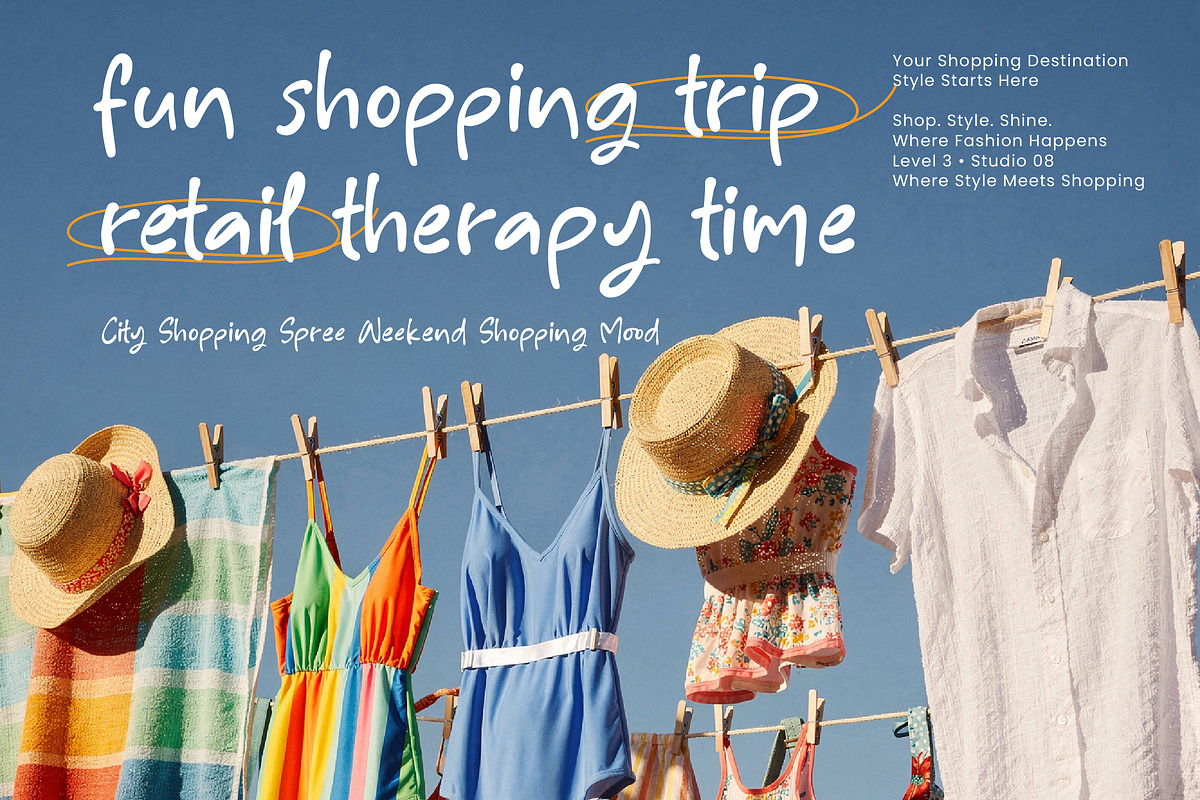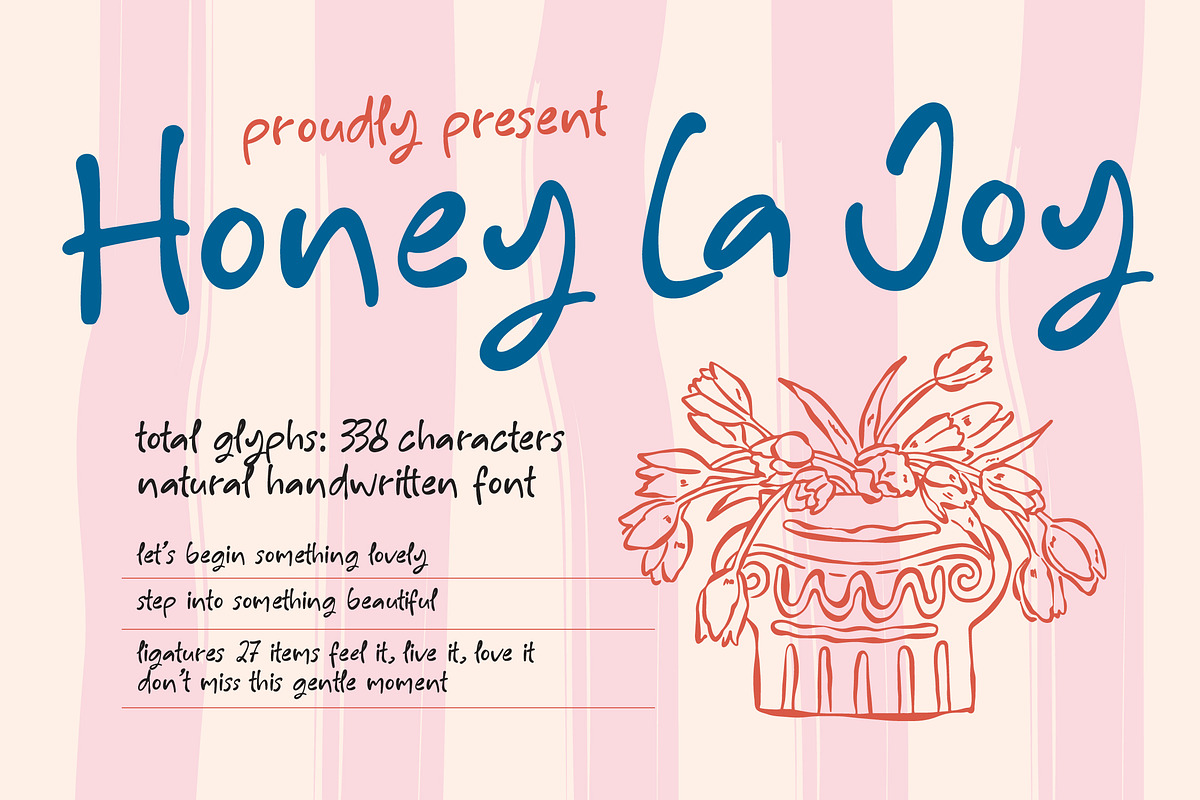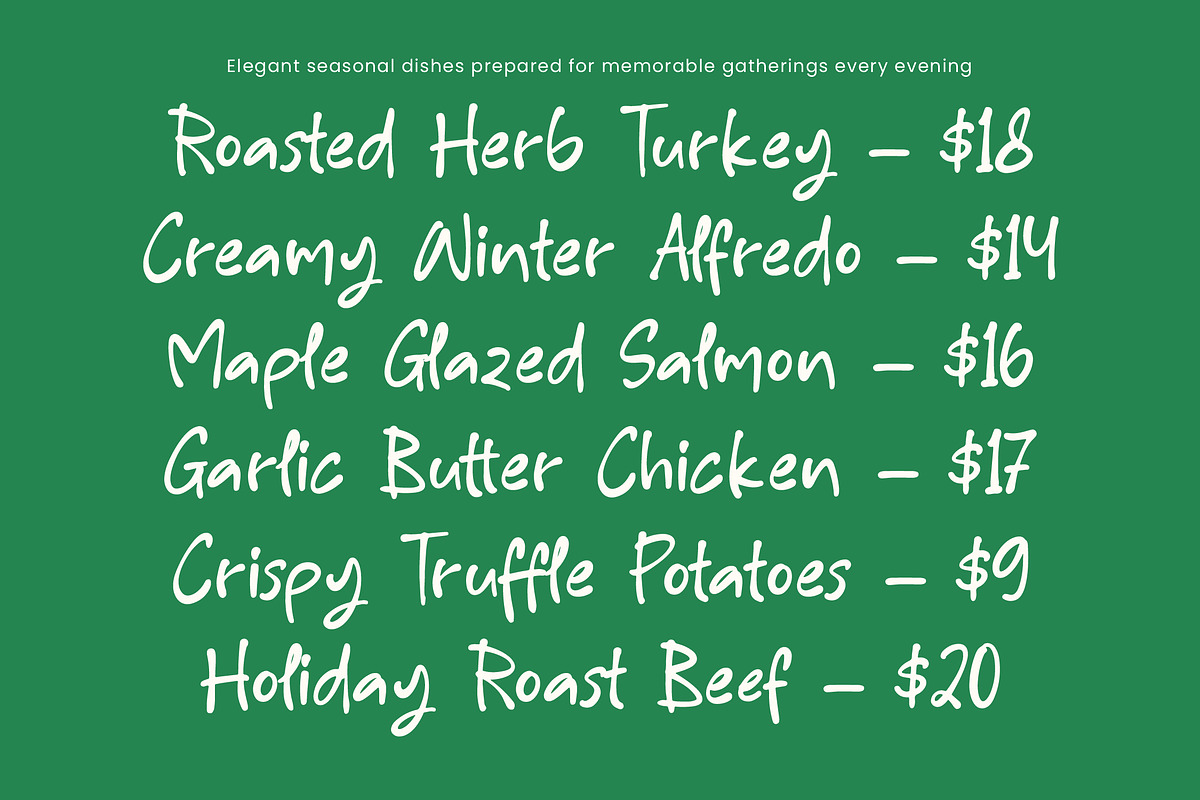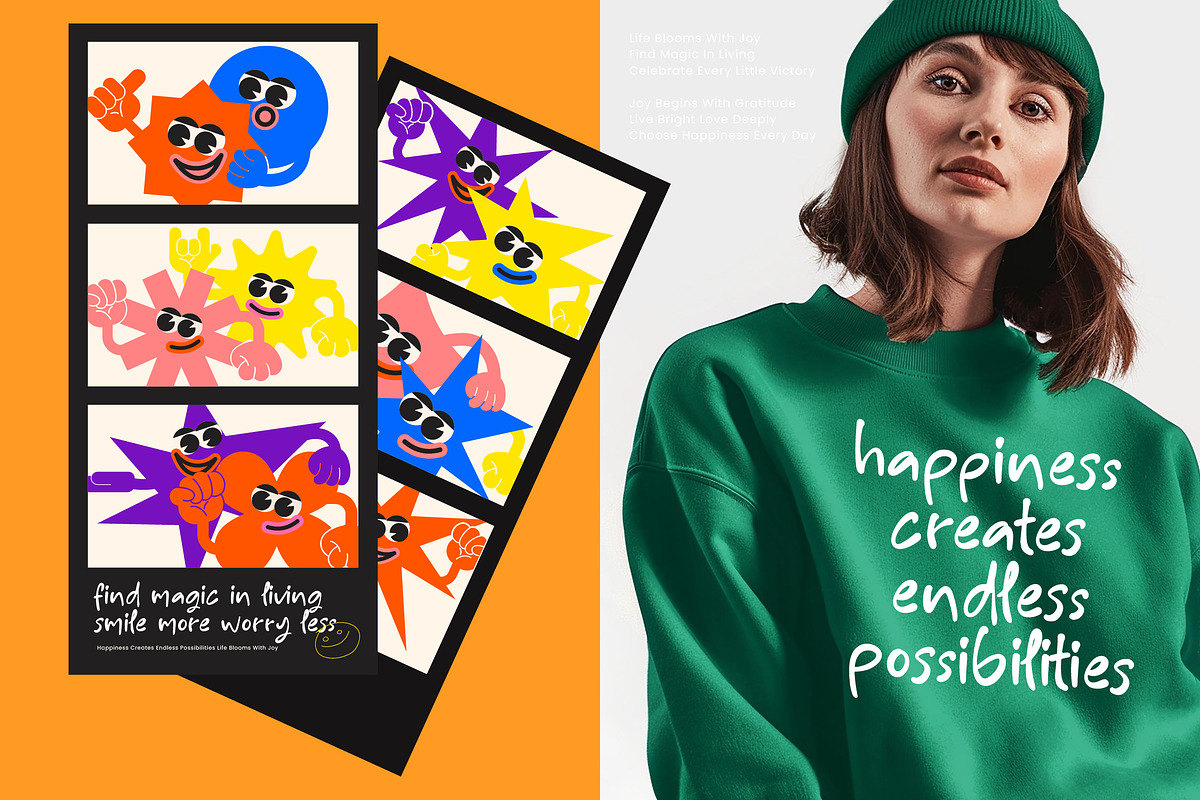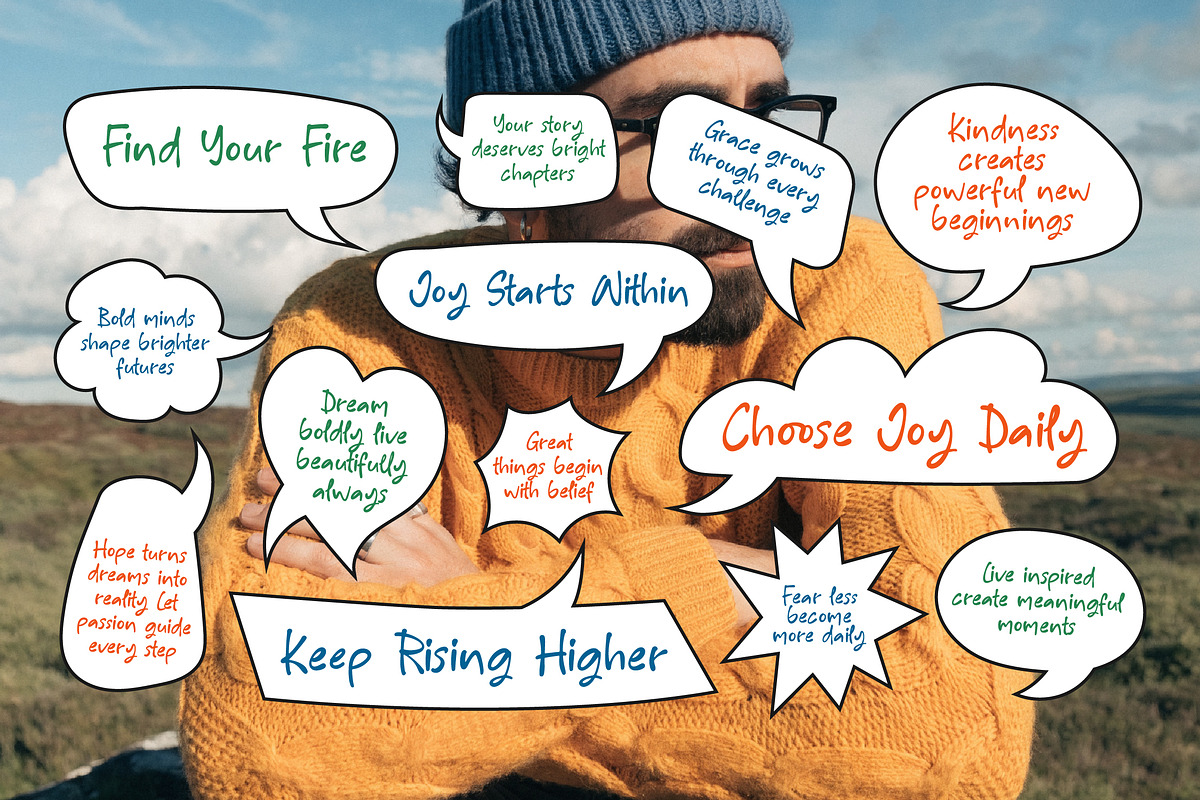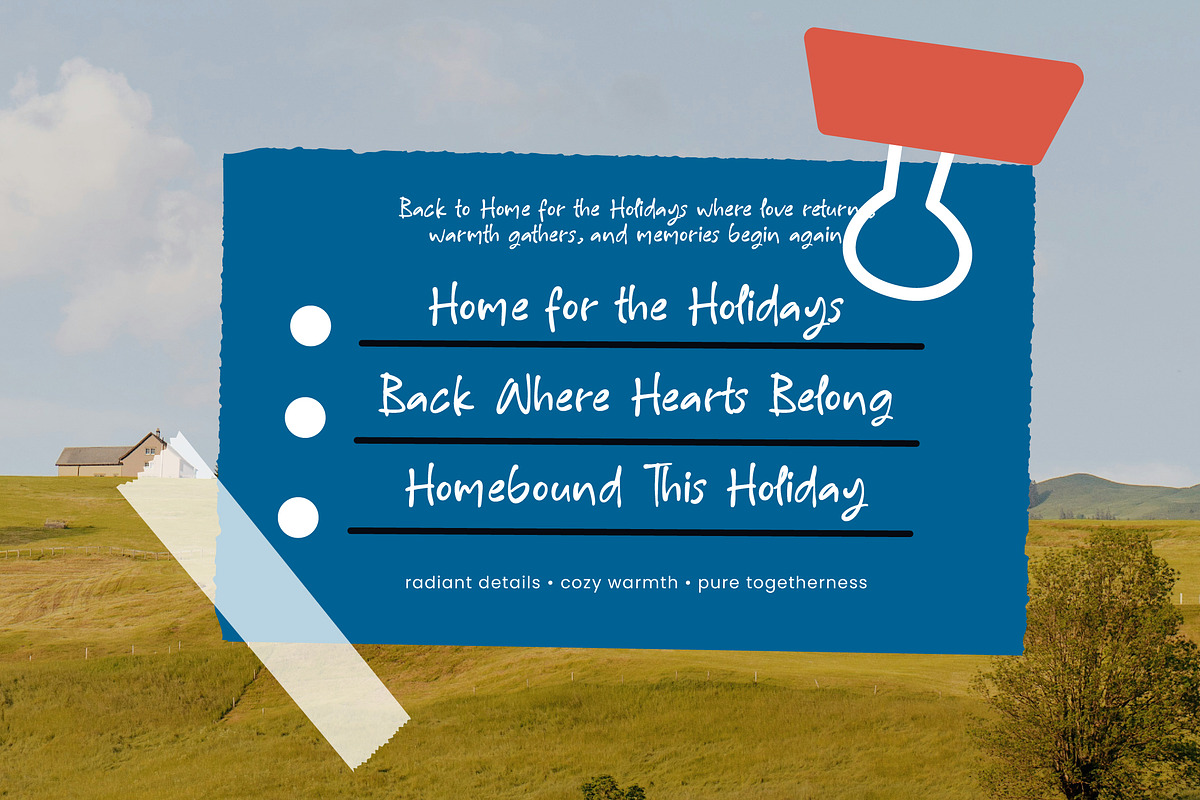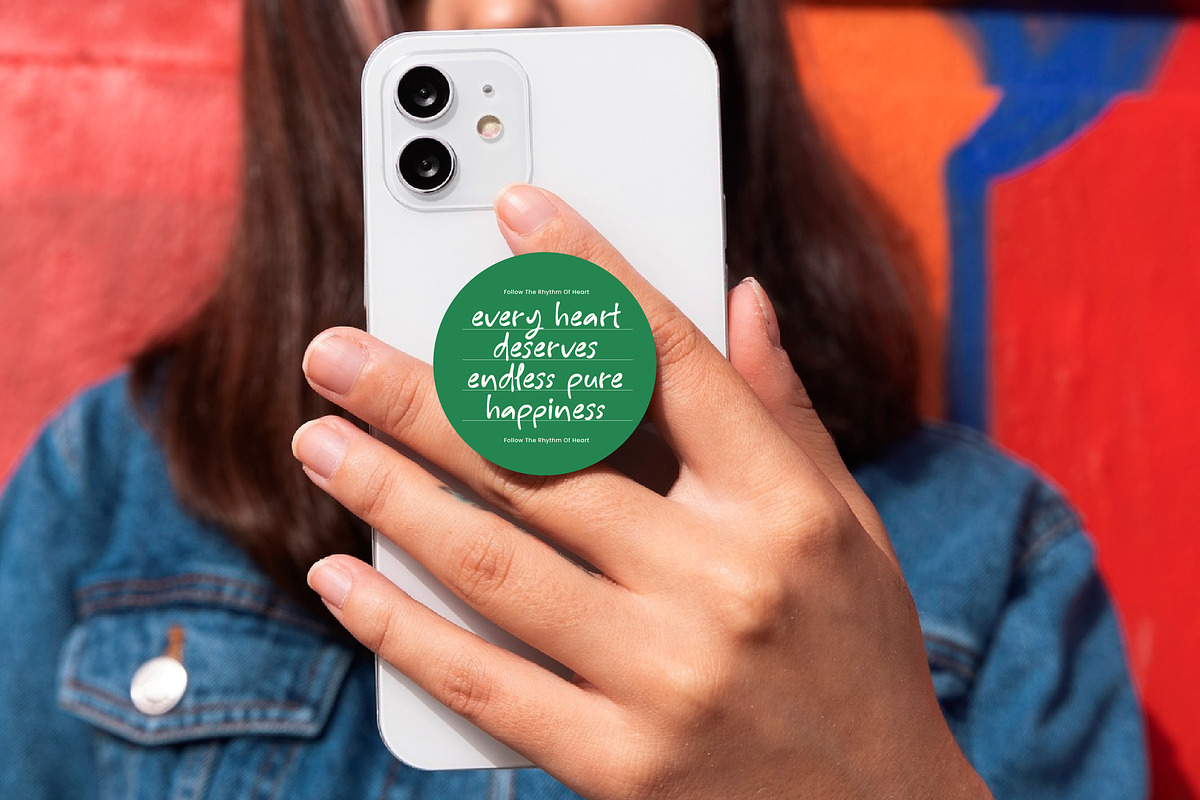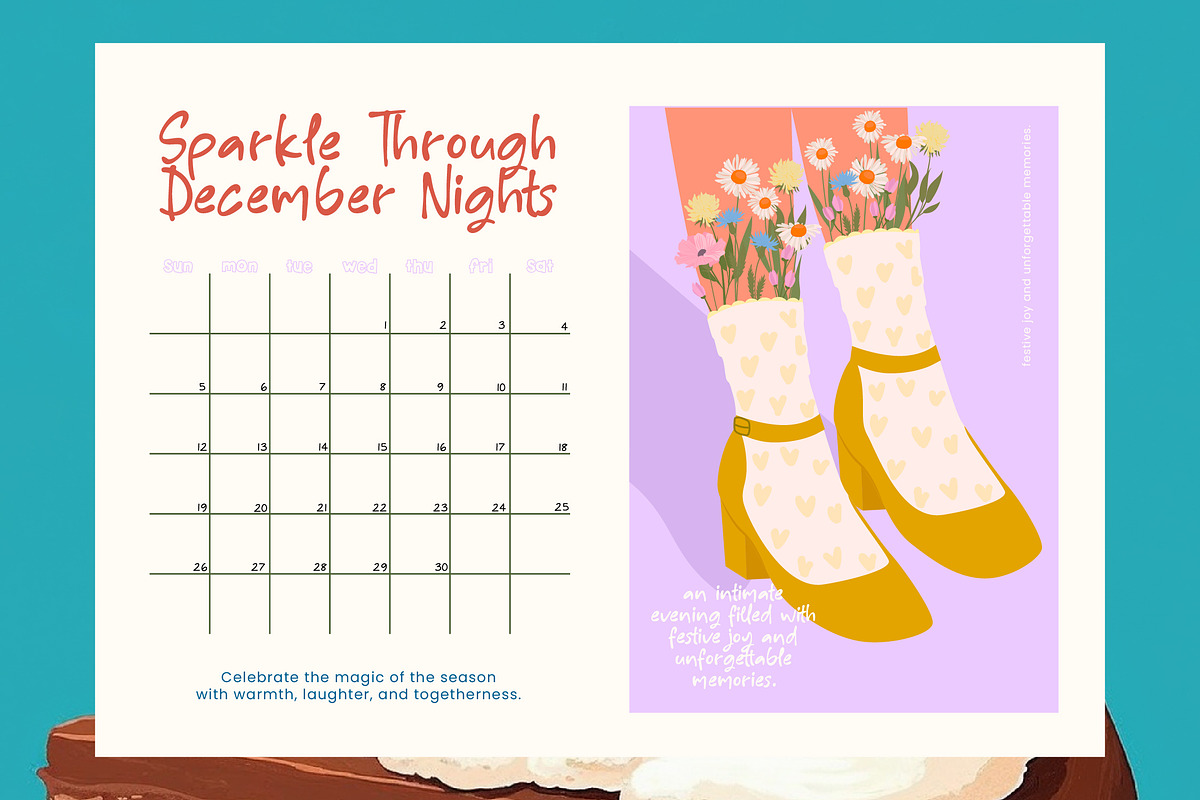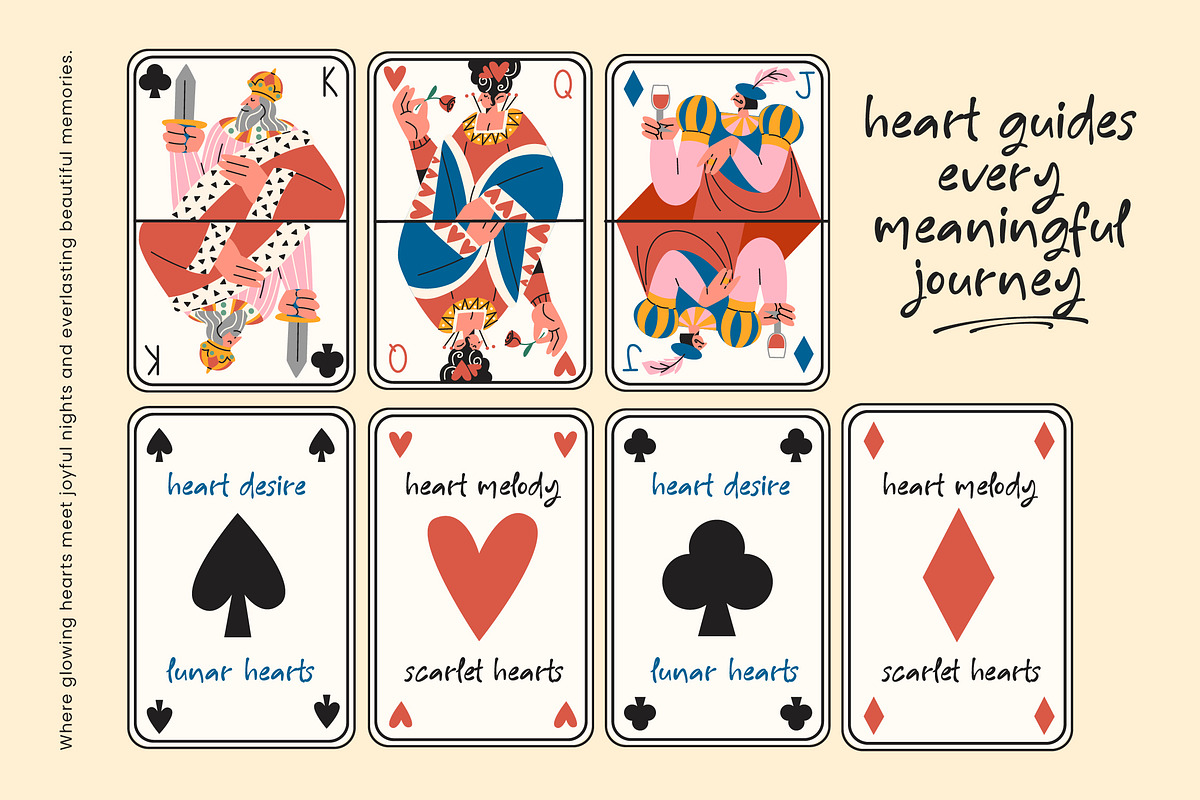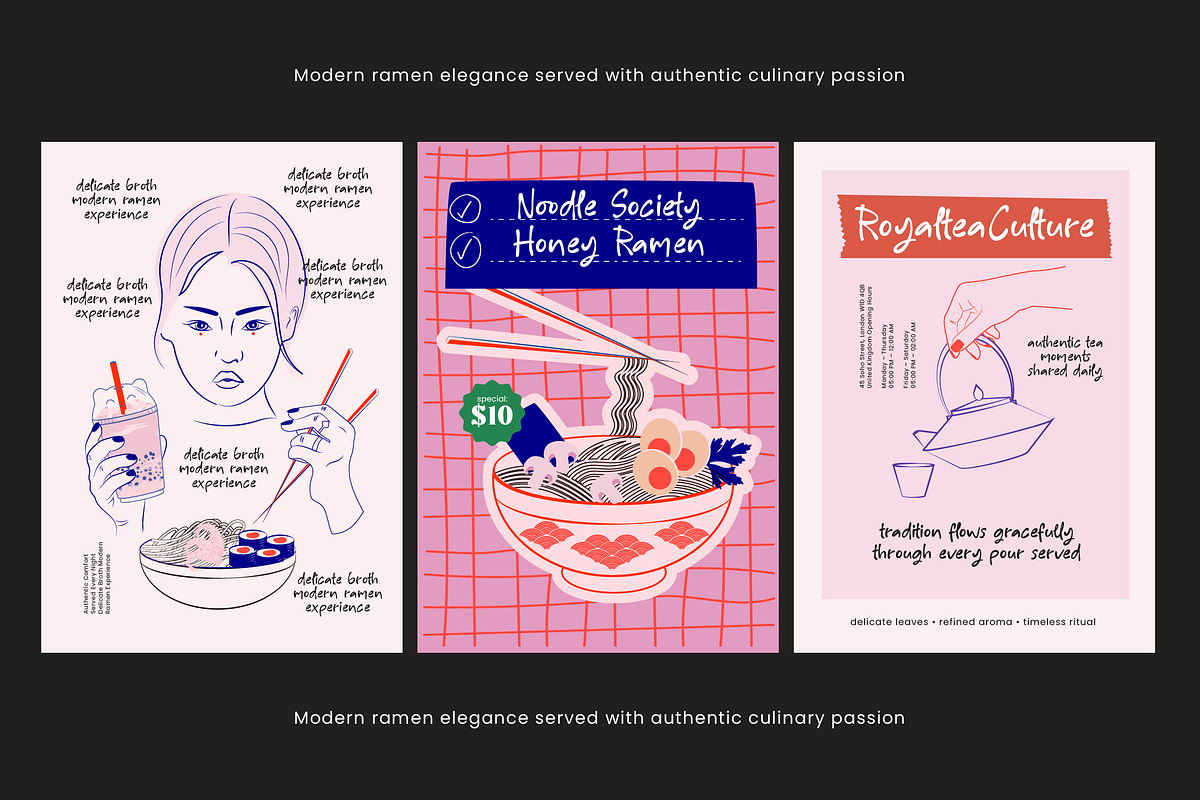
Honey La Joy Natural Handwritten
Honey La Joy - Natural Handwritten Font
Elevate your creative vision with a touch of authentic charm and organic flow. Honey La Joy - Natural Handwritten Font is a meticulously crafted typeface that captures the essence of natural handwriting with unmatched fluidity. Featuring 338 characters and 27 custom ligatures, this font provides the perfect balance between professional polish and a personal, hand-drawn aesthetic that resonates with modern audiences.
Transform your brand identity with effortless sophistication and a contemporary edge. This typeface is the ideal application for luxury branding, premium packaging design, and high-end editorial layouts. Whether you are crafting social media graphics or elegant invitation suites, Honey La Joy - Natural Handwritten Font is perfect for projects that demand a warm, approachable, yet exclusive aesthetic.
Expand your reach with a typeface designed to resonate across a global audience. With its extensive multilingual support, Honey La Joy - Natural Handwritten Font adapts seamlessly across global markets, making it incredibly versatile for international projects. This ensures your message remains clear and stylistically consistent regardless of the linguistic context, providing unrivaled flexibility for global brands.
Invest in a premium design asset that guarantees high-impact professional results. Honey La Joy - Natural Handwritten Font serves as a dynamic storytelling tool, allowing designers to evoke emotion through its rhythmic strokes and artistic flair. Secure this versatile typeface today to enhance your design portfolio and deliver visual excellence across every digital and print medium.